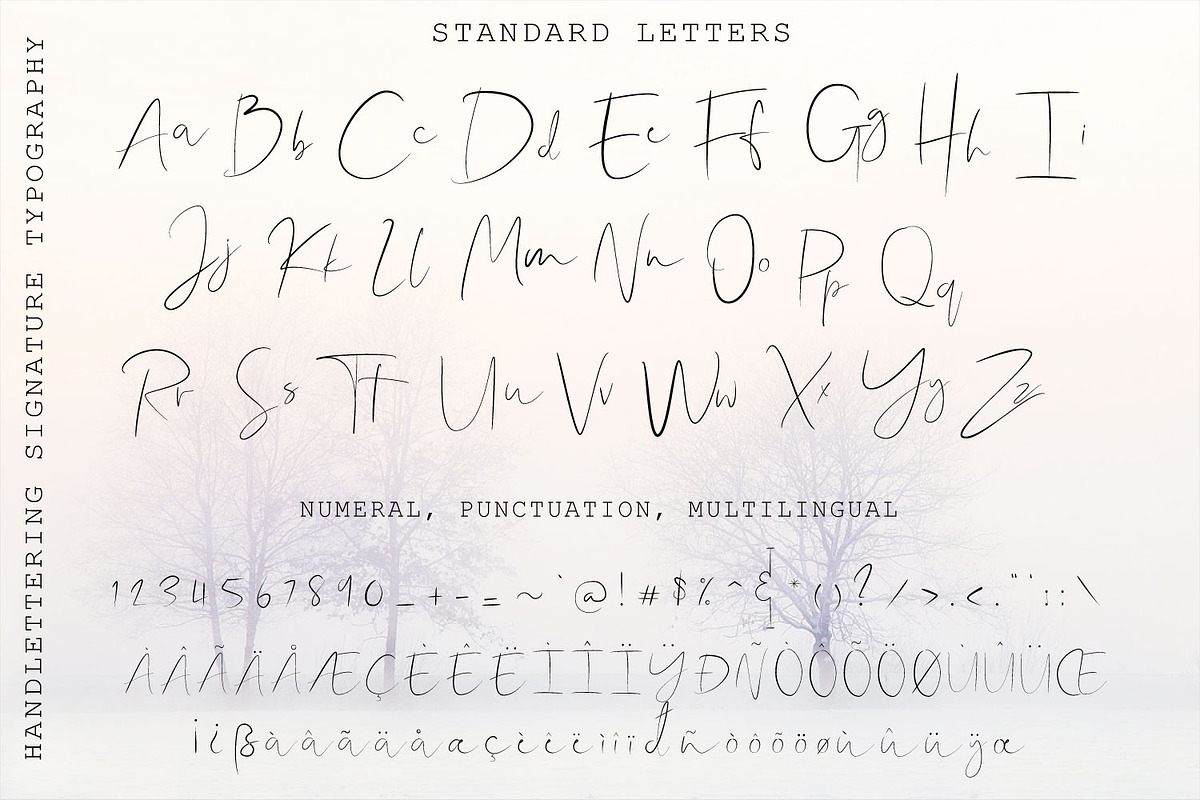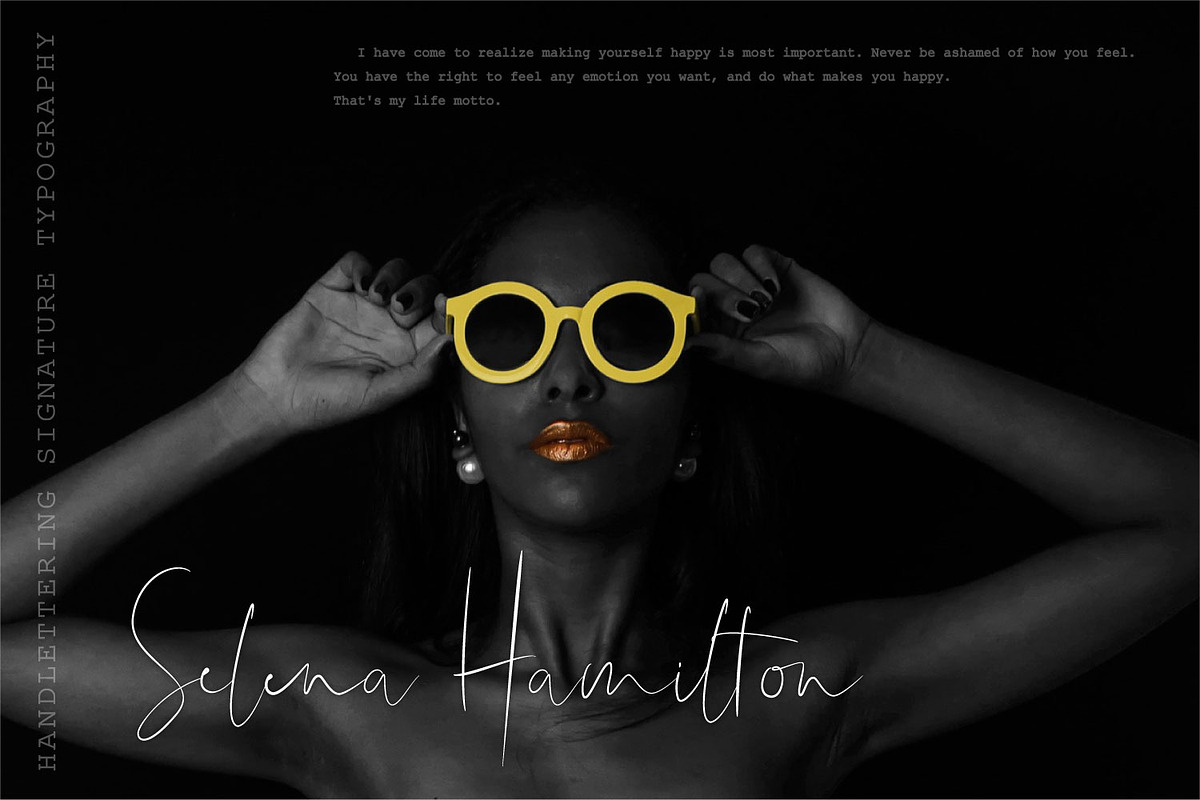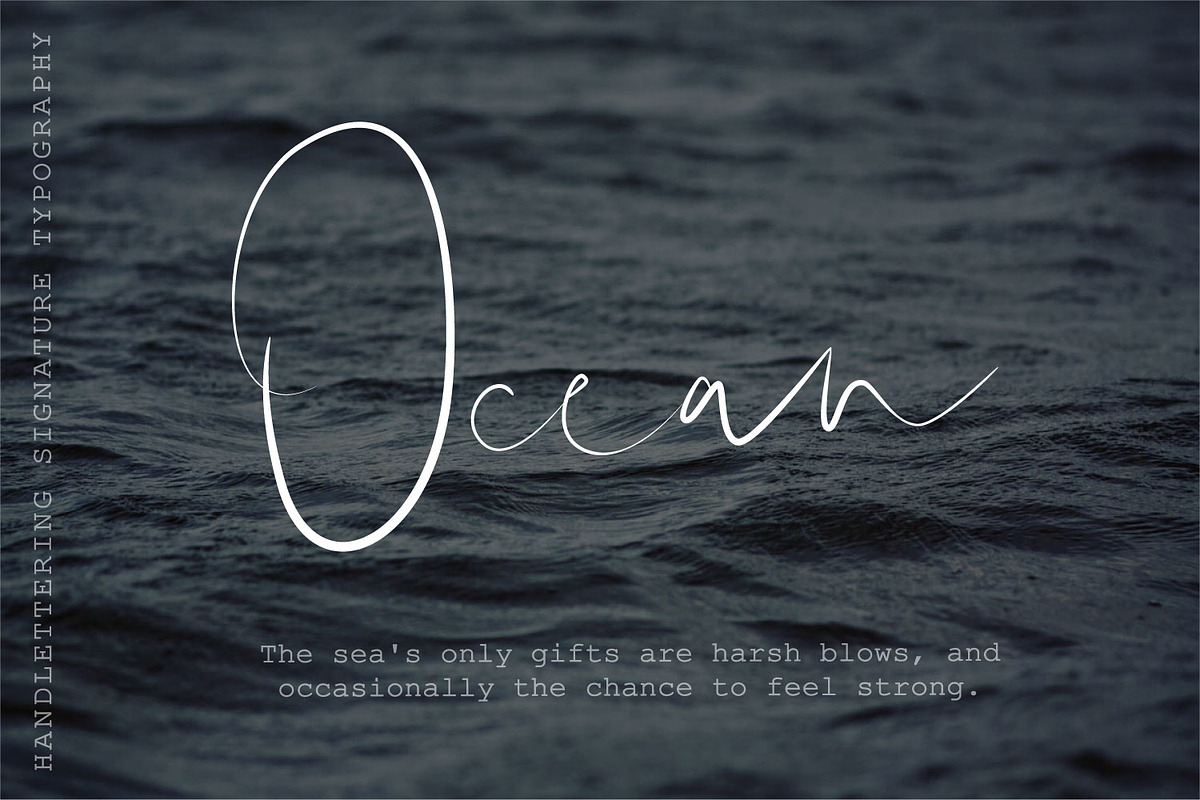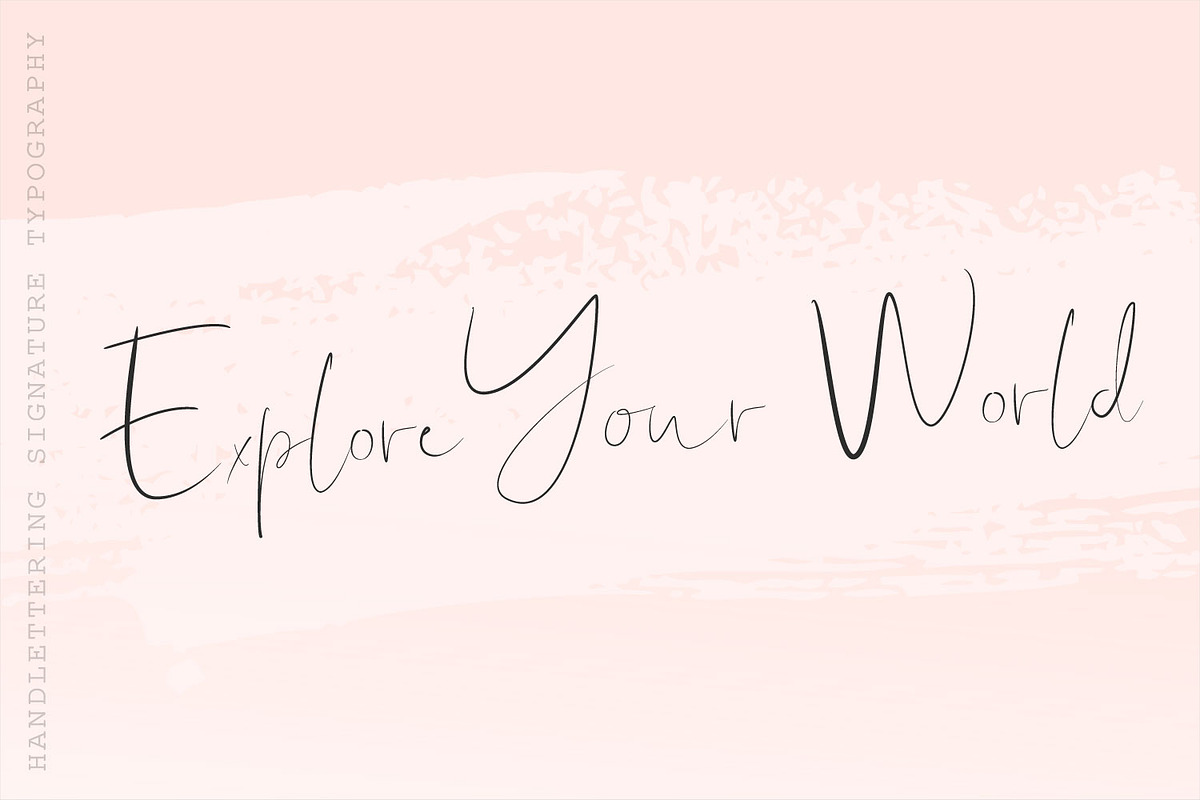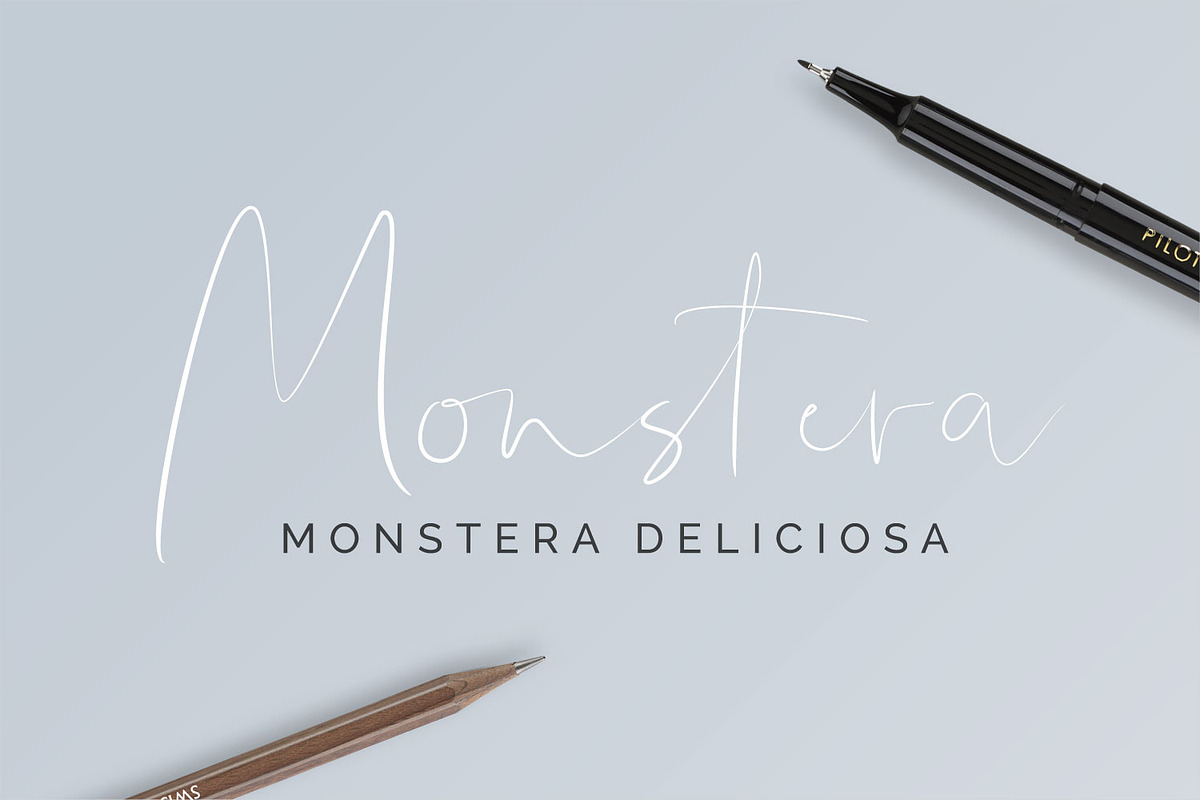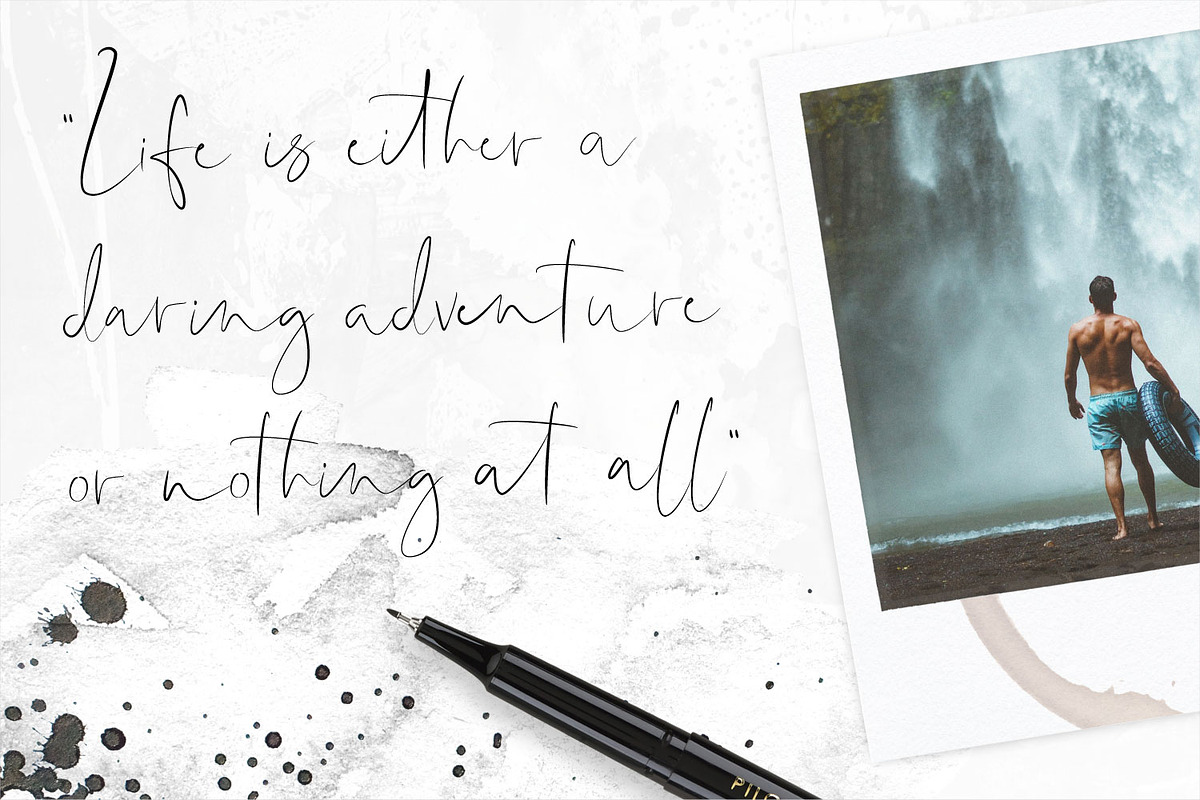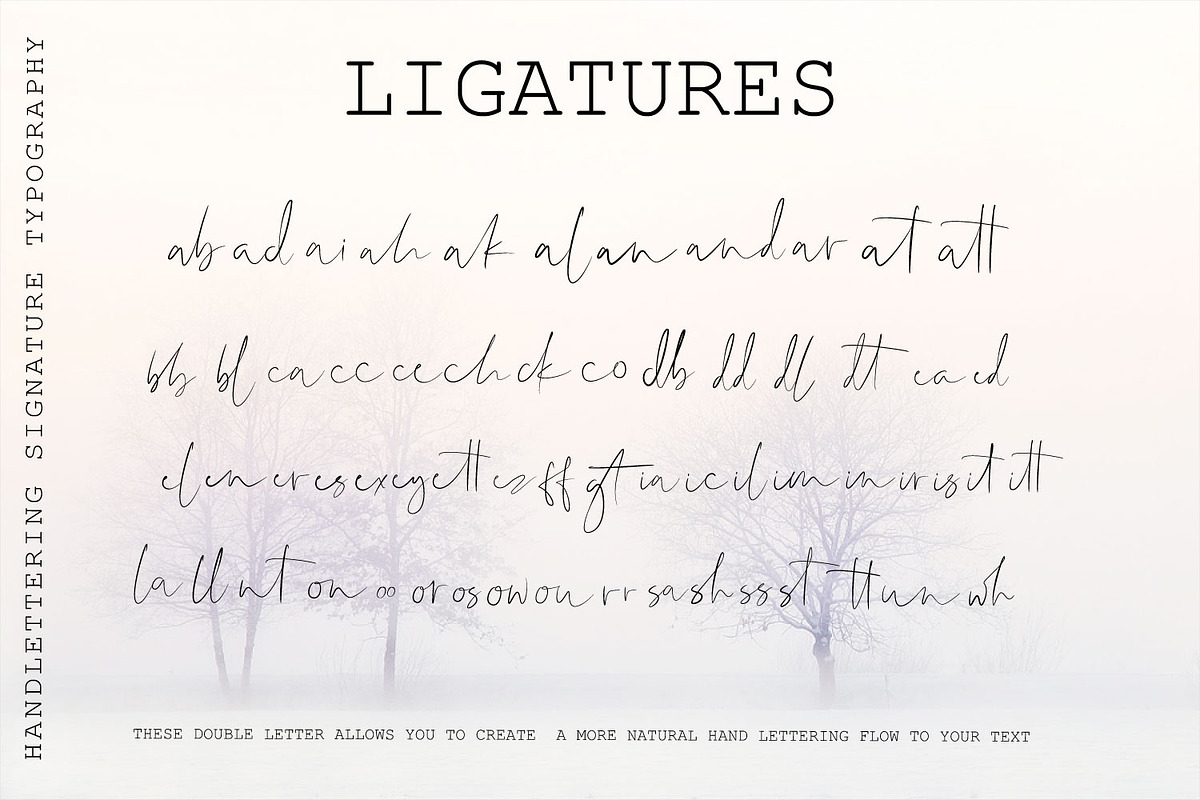
Shallou Signature Script Typeface
Shallou.otf is a handmade brushed typeface with a delicate, fun, and slightly informal look. Over 55 ligatures are included along with multilingual support.
This typeface is ideal for weddings, invitations, posters, banners, & more.
- Over 55 ligatures are included along with multilingual support.